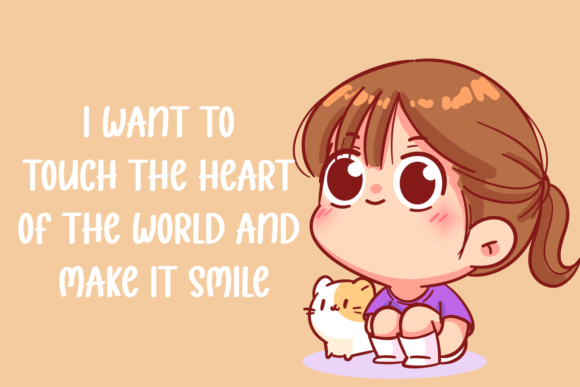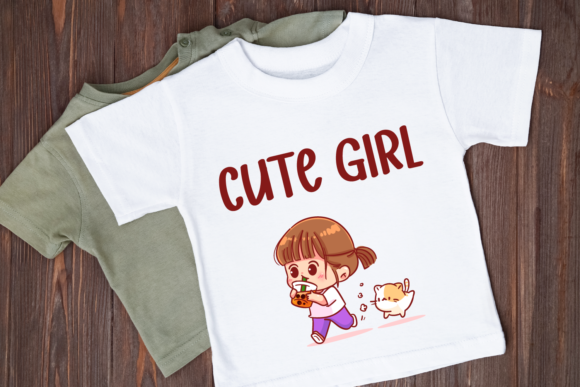
Kitty Dream Font
db-ku.com - Script & Handwritten -- Kitty Dream is a cute and flexible handwritten font. Its natural and unique style makes it incredibly fitting to a large pool of designs. Have fun with this beautiful font and explore its endless variations.